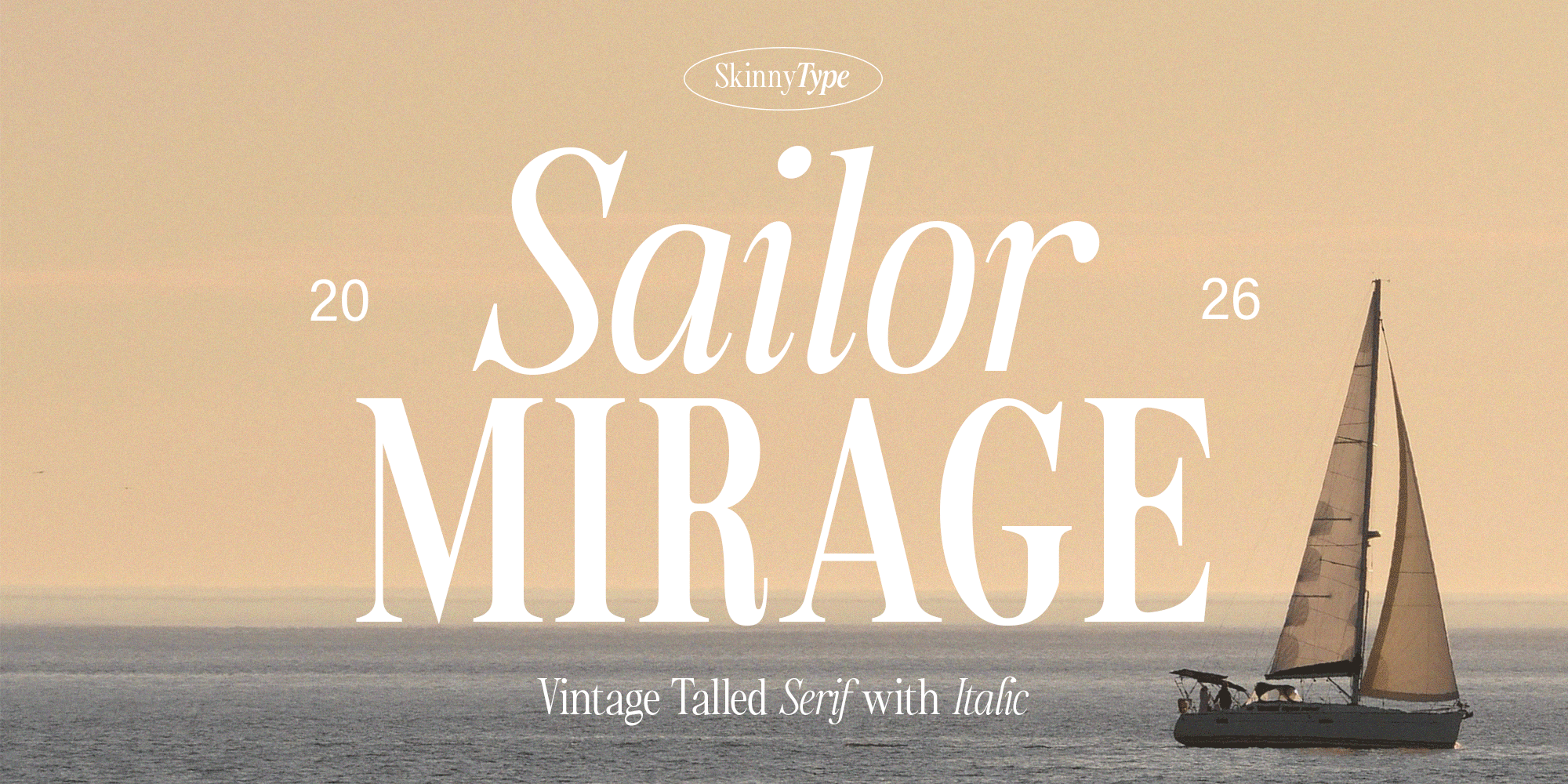
Sailor Mirage is a vintage tall serif typeface designed with elegant proportions and a timeless editorial character, offering a complete system of 8 weights with matching true italics for maximum versatility. Its slender letterforms, balanced contrast, and softly tapered serifs draw inspiration from classic book typography and mid-century design, creating a refined yet warm visual tone. Each italic style is carefully crafted to feel fluid and expressive rather than mechanically slanted, adding movement and romance to layouts. With its wide weight range and consistent rhythm, Sailor Mirage adapts seamlessly from delicate headlines to bold statements, making it ideal for fashion, editorial, luxury branding, and cinematic typography that values depth, hierarchy, and enduring elegance. Sailor Mirage is rooted in the idea that typography should feel enduring rather than temporary. 18 fonts for $99 $69.30 | |